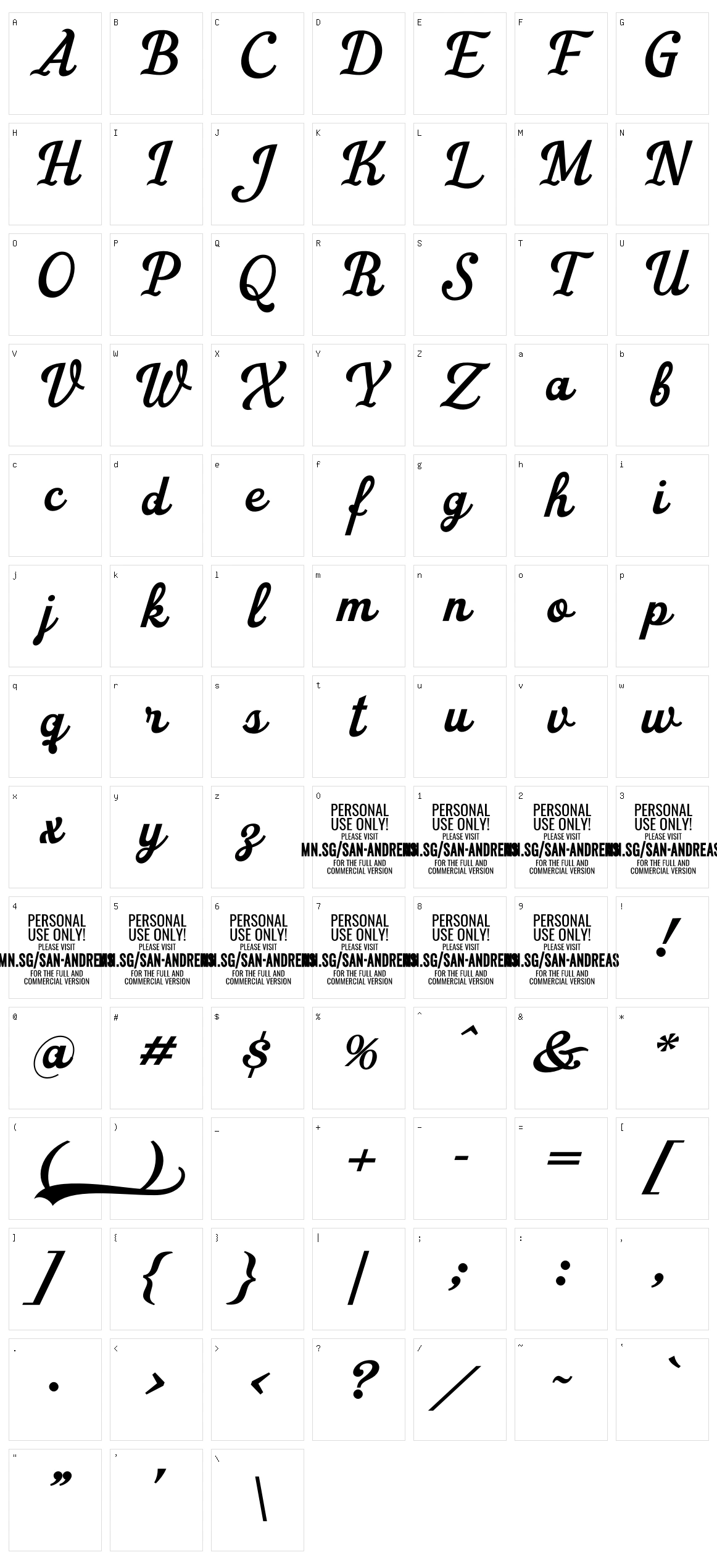
San Andreas is a sport script font.
Drawn and created by Mans Greback in 2021, this logotype lettering has a distinct retro style and a strong vintage personality, with a combination of soft brushes and strict backbones.
Use underscore _ to make a swash. Example: Baseball_
Use multiple underscores to make swashes of different lengths. Example: Athletics______
San Andreas is built with advanced OpenType functionality and has a guaranteed top-notch quality, containing stylistic and contextual alternates, ligatures and more features; all to give you full control and customizability.
The font has extensive lingual support, covering all Latin-based languages, from North Europa to South Africa, from America to South-East Asia.
It contains all characters and symbols you'll ever need, including all punctuation and numbers.